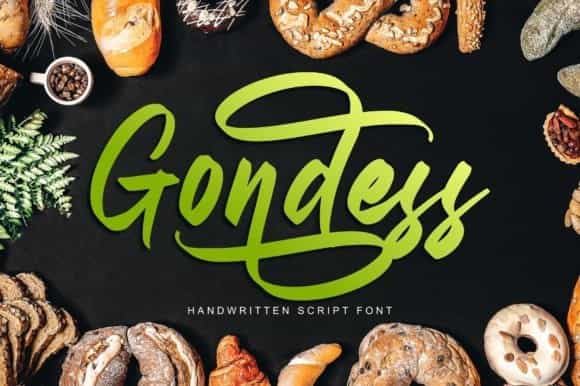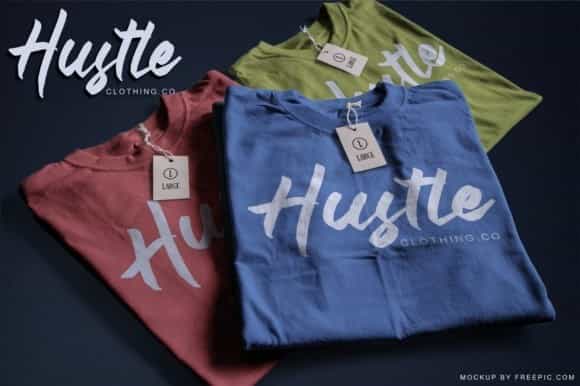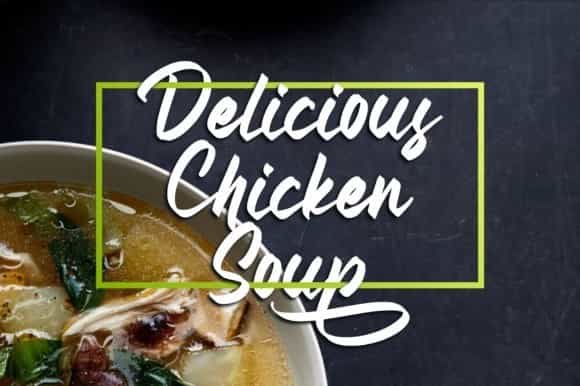
Discover Gondess Script Font, part of the Brush Calligraphy collection—a versatile and unique font perfect for adding a personal touch to your projects. Download it for free and enjoy crafting designs with style, from invitations to social media posts. This font is available exclusively for personal use, giving you the freedom to create without limits. Unlock your creativity with Gondess Script Font today!
Gondess is a great lettering font, every single letter has been carefully crafted to make your text look beautiful. You can create compositions from fonts, it is easy and a simple process. With lettering script style this font will perfect for many different project ex: the quoted, blog header, poster, wedding and branding quotes as well as the logo.